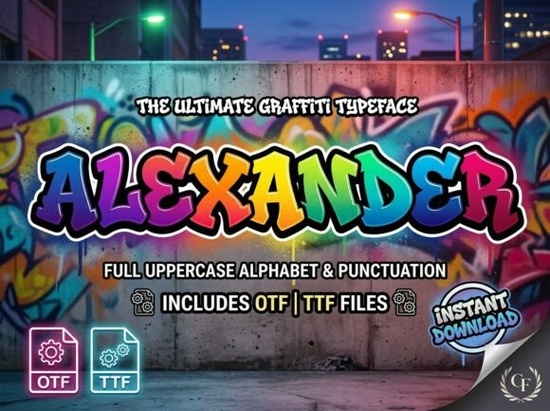
If you’ve been searching for a decorative font that doesn’t just blend in but actually steals the show, take a closer look at Alexander Font. It’s not your average typeface it’s built with artistic flair and intentional imperfections that give it character. Whether you’re designing merch, branding a small business, or just playing around with social media graphics, this font adds personality without needing extra embellishments.
What makes this font stand out from other decorative fonts?
Most display fonts try to be bold or quirky, but Alexander Font manages to feel both refined and rebellious. The letterforms have subtle curves, unexpected angles, and handcrafted details that make each character feel like part of an art piece. You’ll notice how certain strokes taper off dramatically or loop back in surprising ways these aren’t mistakes, they’re design choices meant to catch the eye.
It works especially well when you want your text to carry the weight of the message. Think album covers where the band name needs to feel iconic, or packaging labels that need to pop on a crowded shelf. Even simple quotes on Instagram become scroll-stoppers when set in this style. For more options like this, check out our collection of decorative fonts that balance creativity with clarity.
Where can I actually use Alexander Font?
Here’s the good news: it’s surprisingly flexible. You don’t need to be working on a gallery poster to justify using it. Real users are putting it to work in everyday projects:
- T-shirts and hoodies – Pair it with minimalist graphics or let the typography shine solo.
- Small business logos – Especially effective for boutiques, cafes, tattoo studios, or any brand that wants to feel handmade and memorable.
- Social media banners and quote cards – Its strong presence holds up even at smaller sizes.
- Event flyers and music posters – The drama in the lettering matches the energy of live shows or festivals.
- Product packaging – Soap labels, candle jars, coffee bags anything that benefits from an artisanal vibe.
One user shared they used it for their Etsy shop’s logo and saw an immediate uptick in customer comments about how “unique” their branding felt. Another turned a plain tote bag into a bestseller by adding a single word in Alexander Font across the front.
Any tips for getting the most out of it?
A few practical pointers from designers who’ve used it repeatedly:
- Less is more. This font shines as a headline or accent. Don’t try to set paragraphs with it save that for clean sans-serifs.
- Play with spacing. Slightly increasing letter-spacing (tracking) lets those ornate details breathe and prevents crowding.
- Pair it wisely. Combine it with ultra-simple fonts like Helvetica, Montserrat, or even Arial for contrast. Avoid pairing it with other decorative styles they’ll fight for attention.
- Try color overlays or textures. Because the shapes are so distinct, they hold up well over photos, gradients, or grunge backgrounds.
One clever trick? Use it in all caps for logos or titles, but switch to lowercase for subheadings the contrast in weight and form creates visual rhythm without needing extra elements.
Who is this font NOT for?
If you’re looking for something corporate, sterile, or strictly minimalist, this isn’t your pick. It’s also not ideal for body text, legal disclaimers, or anywhere readability trumps style. But if your goal is to spark emotion, create intrigue, or simply make someone pause mid-scroll, then you’re in the right place.
Print-on-demand sellers love it because customers respond to the “handmade” aesthetic. Small business owners use it to stand out in saturated markets. Hobbyists keep coming back because it turns simple projects into conversation starters.